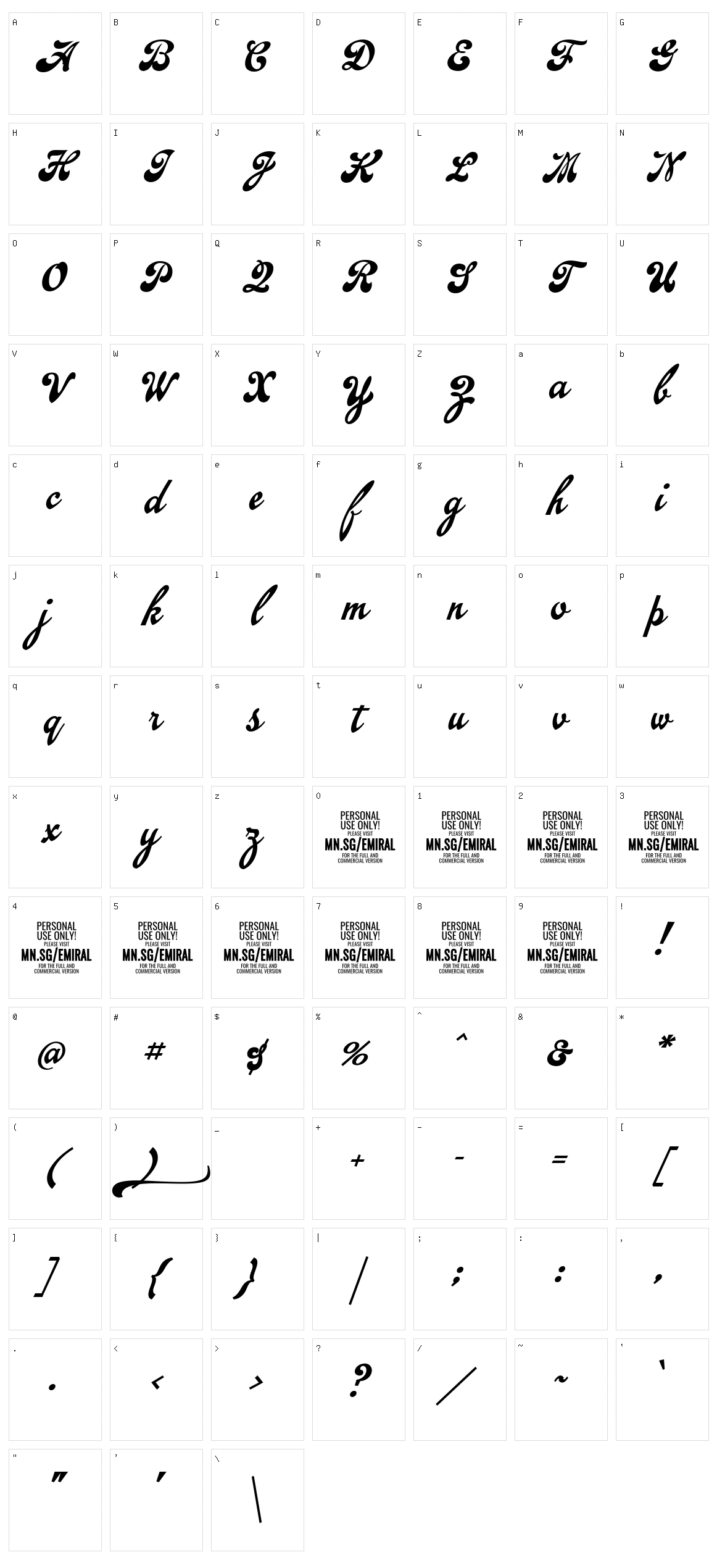
Emiral Script is a vintage typeface in Regular and Bold.
The font is created by Måns Grebäck and works great for logotypes and slogans.
It has contextual alternates and ligatures, and supports hundreds of languages.
Write an underscore after any word to make a swash.
Example: Emiral_
If your software supports ligatures, you can write multiple underscores for a longer line.
Example: Oldtimer__